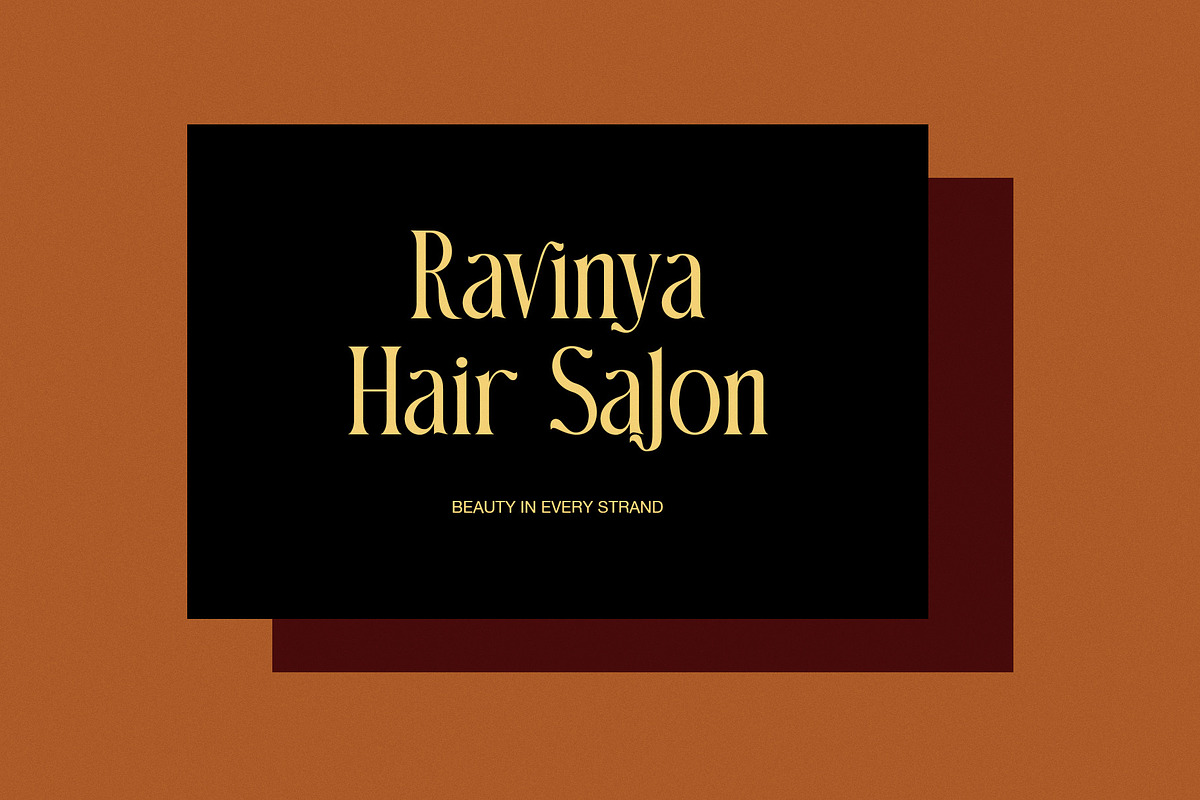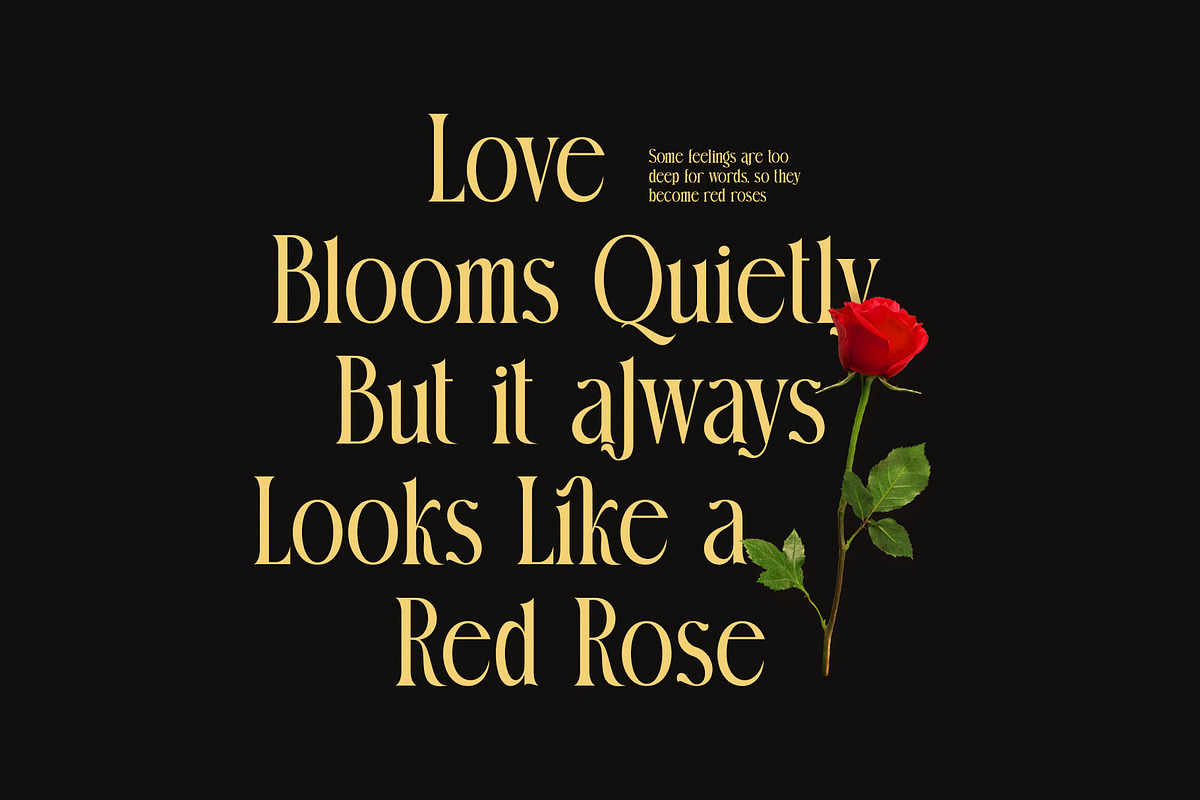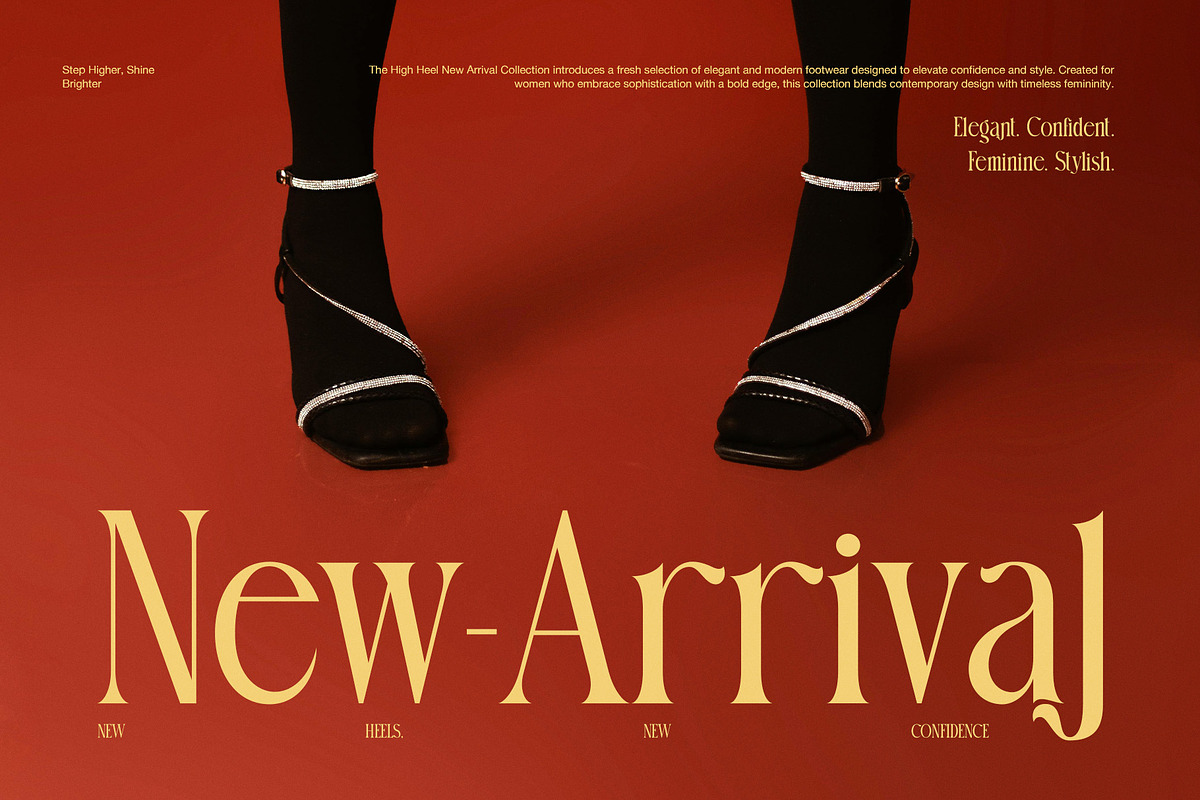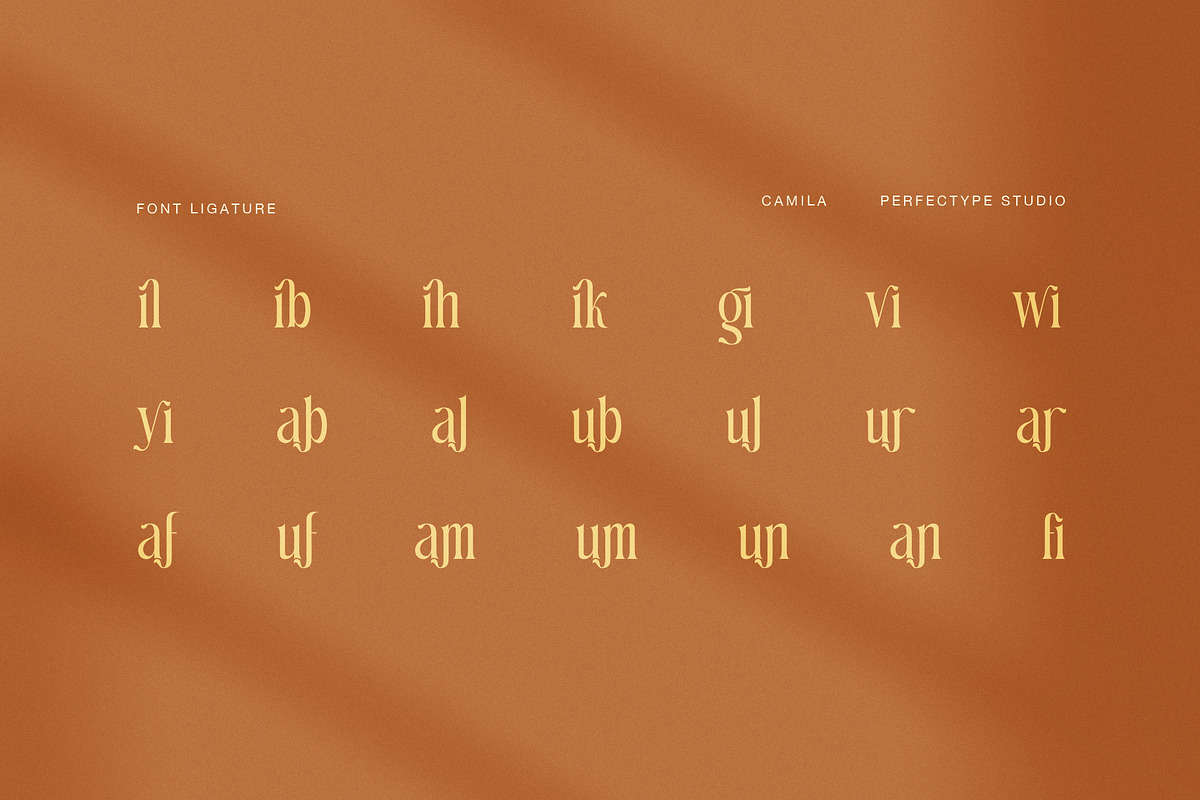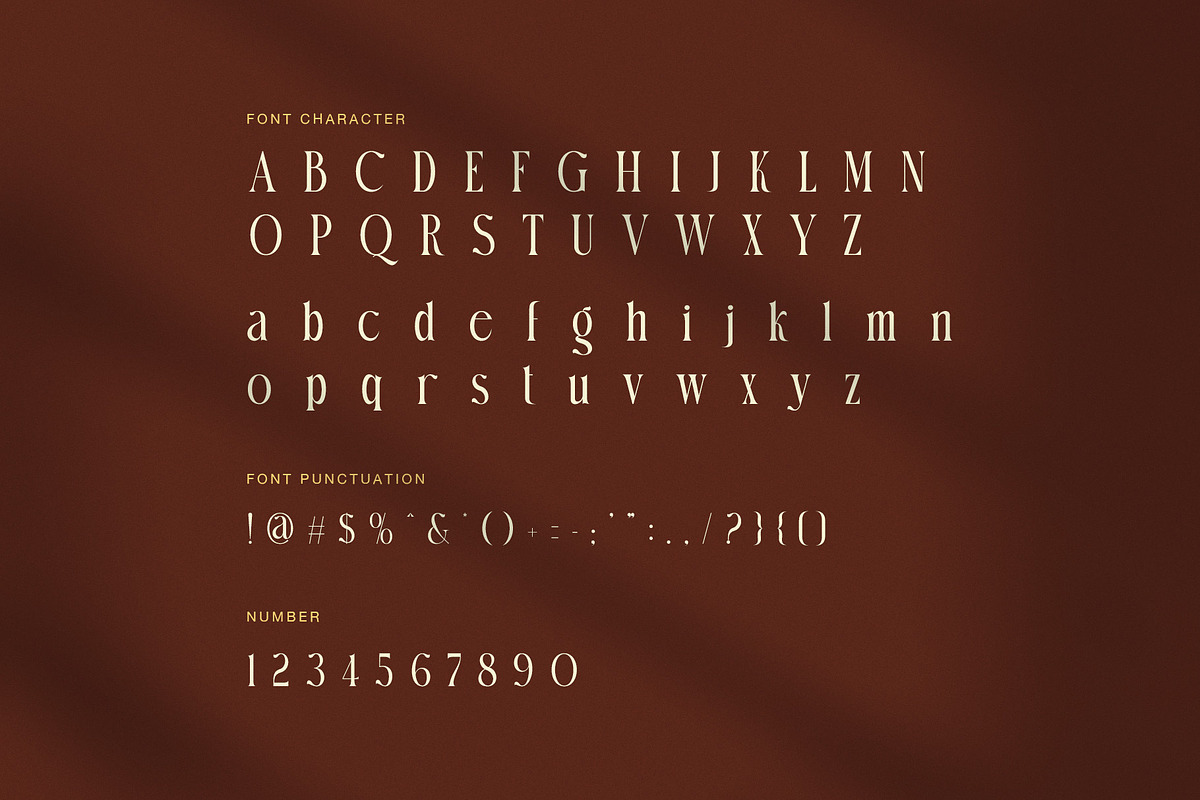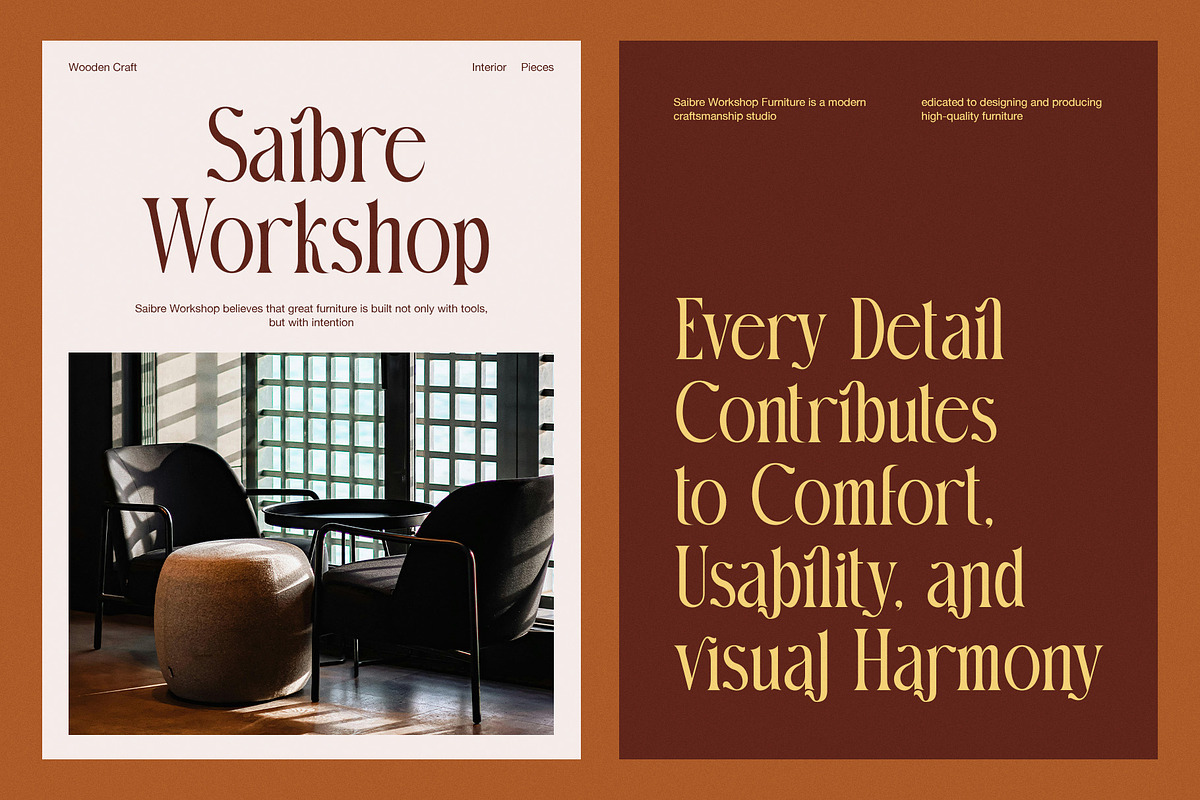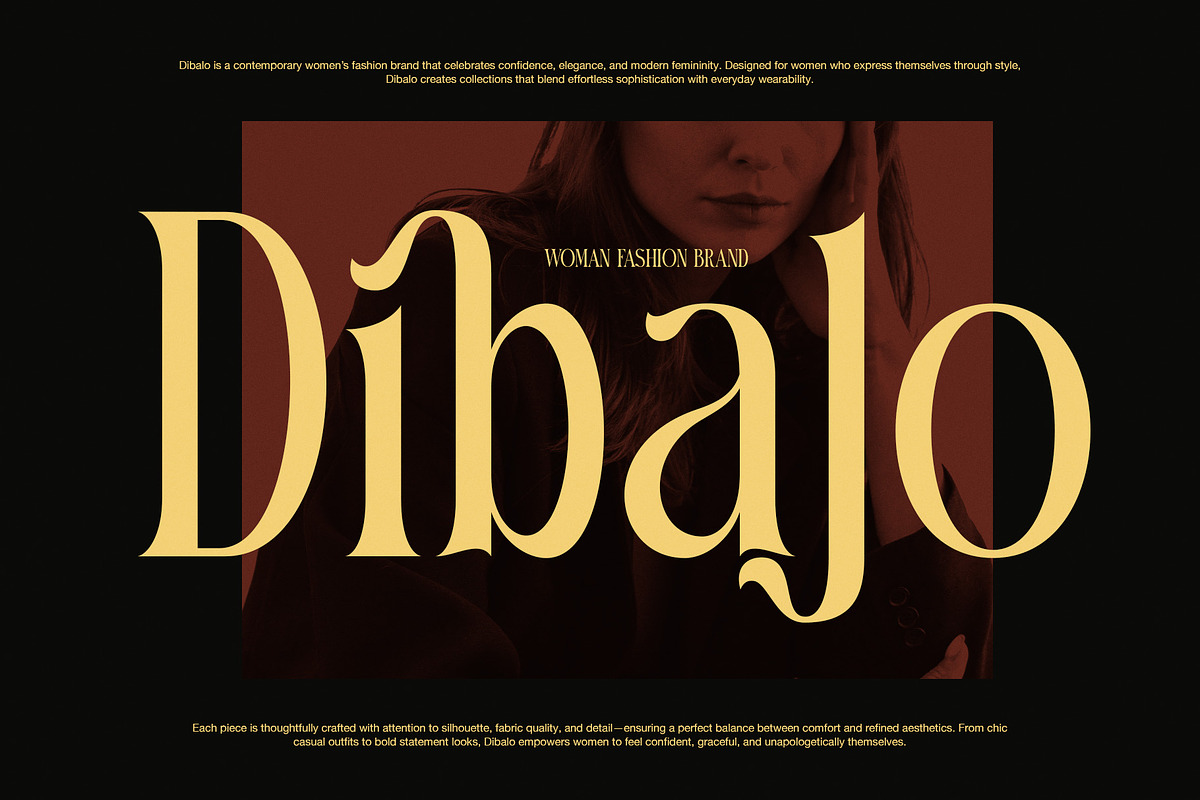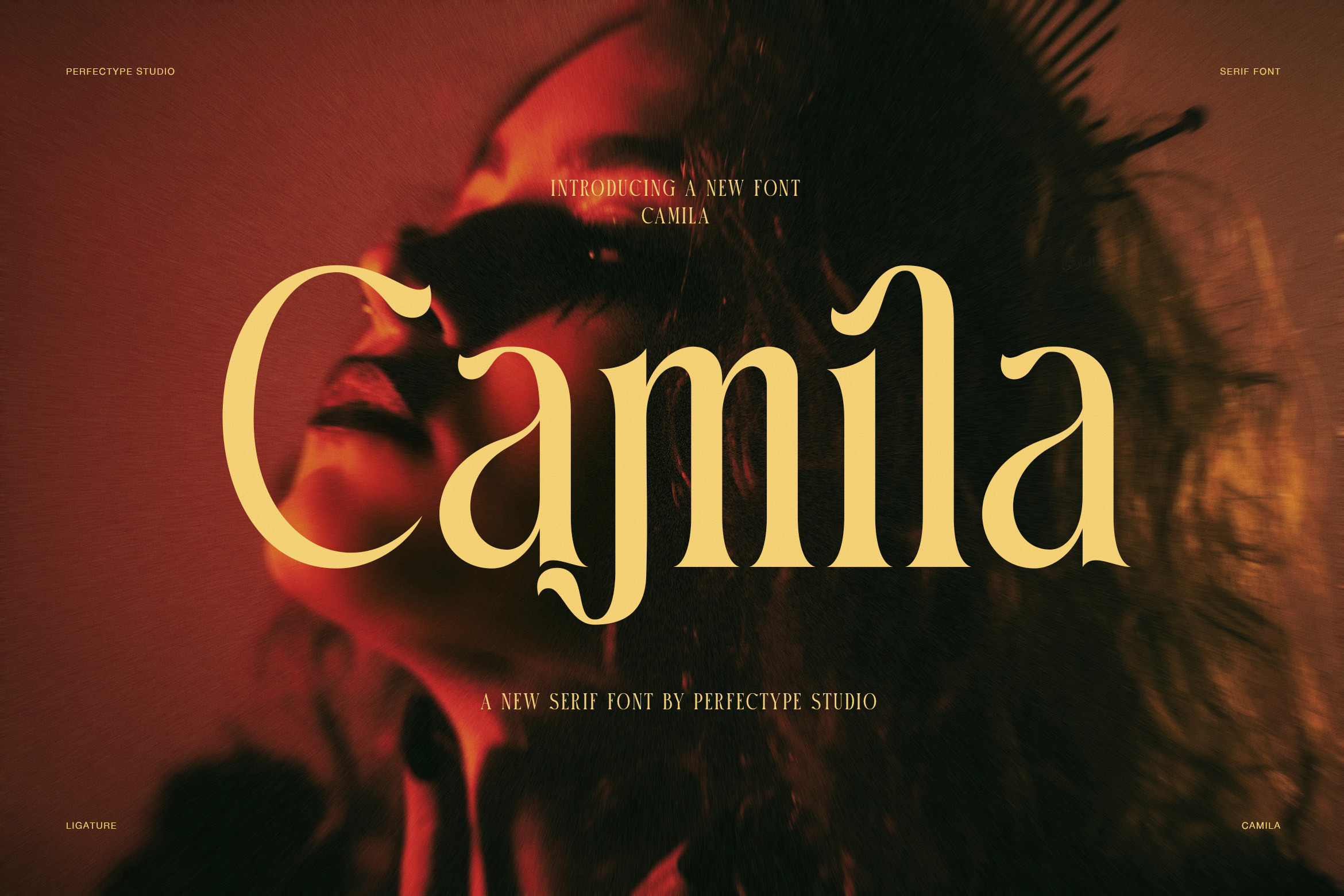
Camila Elegant Ligature Serif Font
Camila is an Elegant Ligature Serif Font designed for creatives who appreciate graceful typography with a luxurious and artistic personality. Inspired by vintage fashion editorials, premium branding, and classic serif craftsmanship, this typeface blends sophisticated letterforms with expressive ligatures that create a striking visual presence. As a result, every design feels refined, memorable, and effortlessly elegant.
The font features high-contrast strokes, soft curves, and beautifully balanced proportions. Moreover, its decorative ligatures introduce seamless letter combinations that transform ordinary words into unique typographic compositions. Every character has been carefully shaped to deliver beauty while maintaining excellent readability. Therefore, Camila performs perfectly across both digital and printed applications.
Camila is ideal for designers seeking a serif font that communicates confidence, creativity, and luxury. Whether you are creating a fashion campaign, premium logo, beauty packaging, or editorial headline, this typeface helps establish a sophisticated brand identity. In addition, its graceful details add warmth and personality without sacrificing clarity.
Because of its timeless structure, Camila adapts naturally to many creative industries. It complements luxury branding, wedding stationery, cosmetic packaging, furniture catalogs, lifestyle magazines, photography portfolios, and elegant social media designs. Furthermore, its distinctive ligatures allow designers to build custom wordmarks that stand apart from standard serif typography.
Luxury branding
Fashion logos
Editorial magazines
Beauty packaging
Cosmetic branding
Wedding invitations
Jewelry brands
Furniture branding
Interior design studios
Photography portfolios
Boutique identities
Premium websites
Restaurant branding
Product packaging
Social media templates
Camila offers an exceptional balance between modern elegance and vintage charm. Consequently, it becomes an excellent choice for creative professionals who want typography that feels exclusive while remaining versatile. Its refined contrast, elegant terminals, and carefully crafted ligatures help every headline capture attention without appearing excessive.
If your project requires typography that combines luxury, femininity, and timeless sophistication, Camila delivers an unforgettable visual experience. From premium branding to editorial layouts and stylish marketing materials, this elegant ligature serif font adds character, professionalism, and lasting beauty to every creative project.